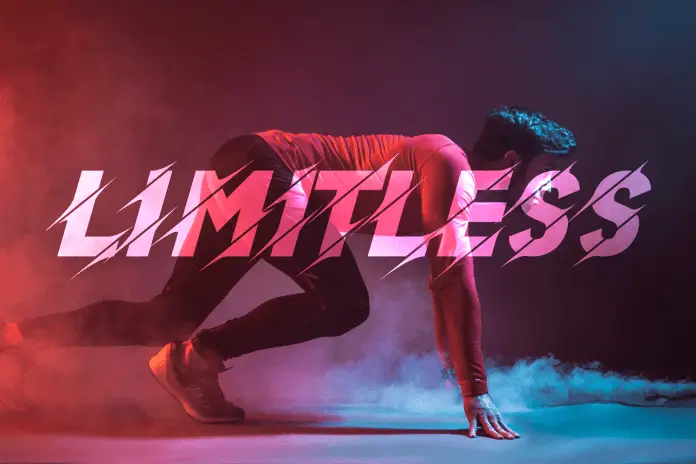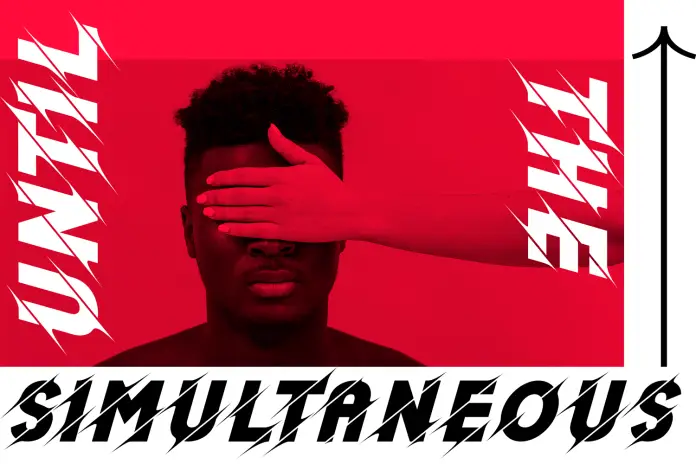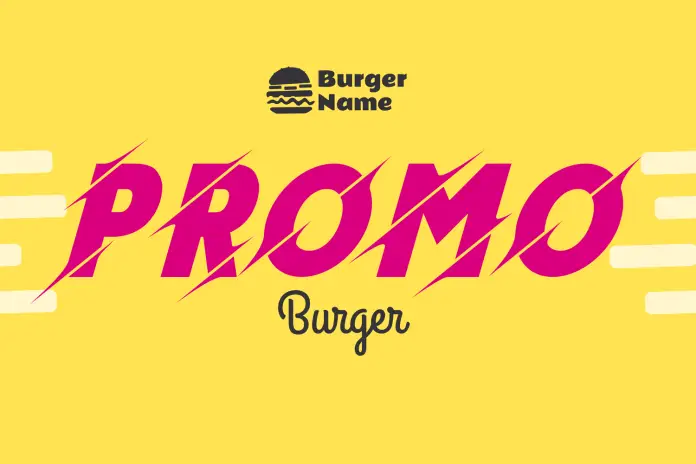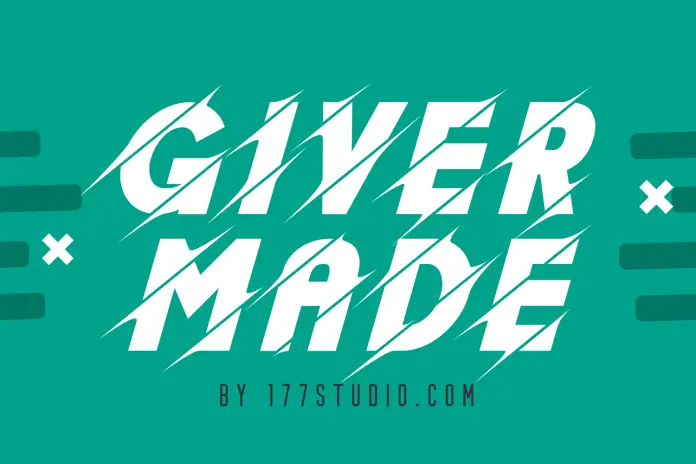
Giver Made Font
The Giver Made Font is a unique typeface designed to add a personal touch to your projects. With its distinct character and style, this font is perfect for various applications, from branding and logos to web and print materials.
• Supports a wide range of languages
• Clear legibility at various sizes
• Ideal for creating eye-catching logos and branding materials
• Great for web design, ensuring readability and style
• Perfect for print projects like flyers, posters, and business cards